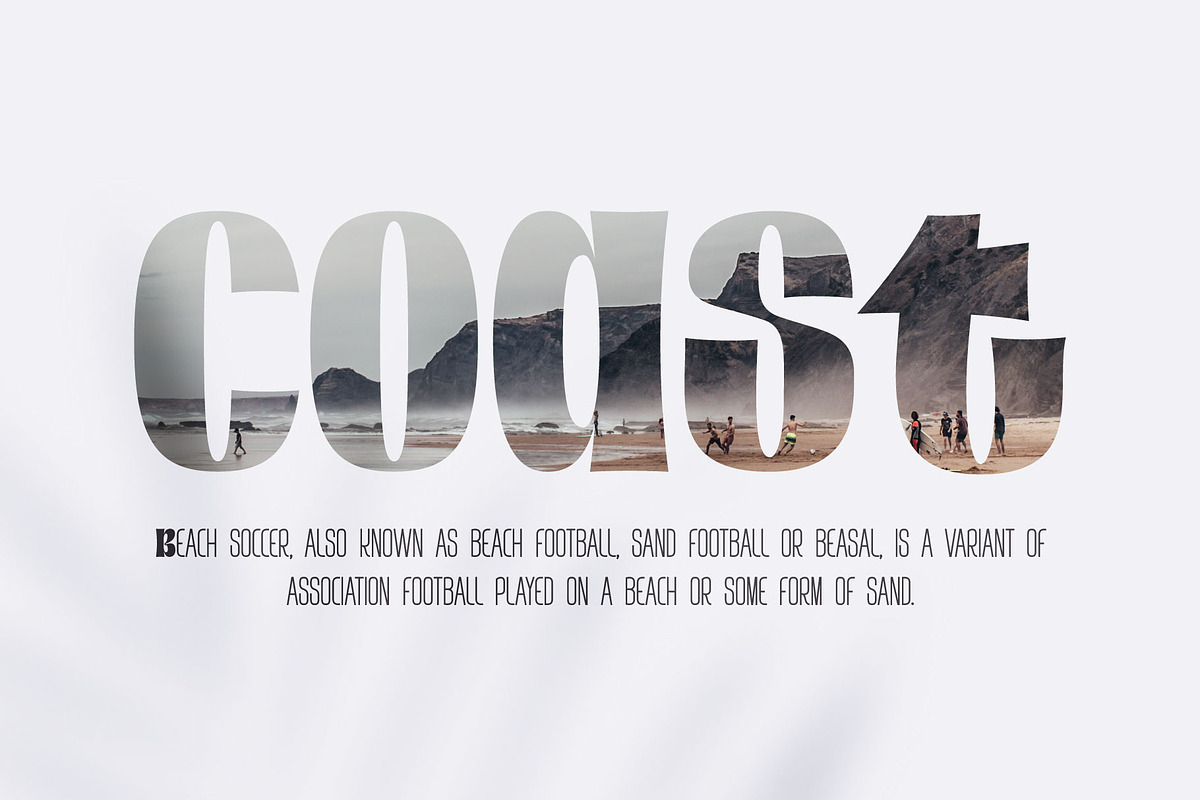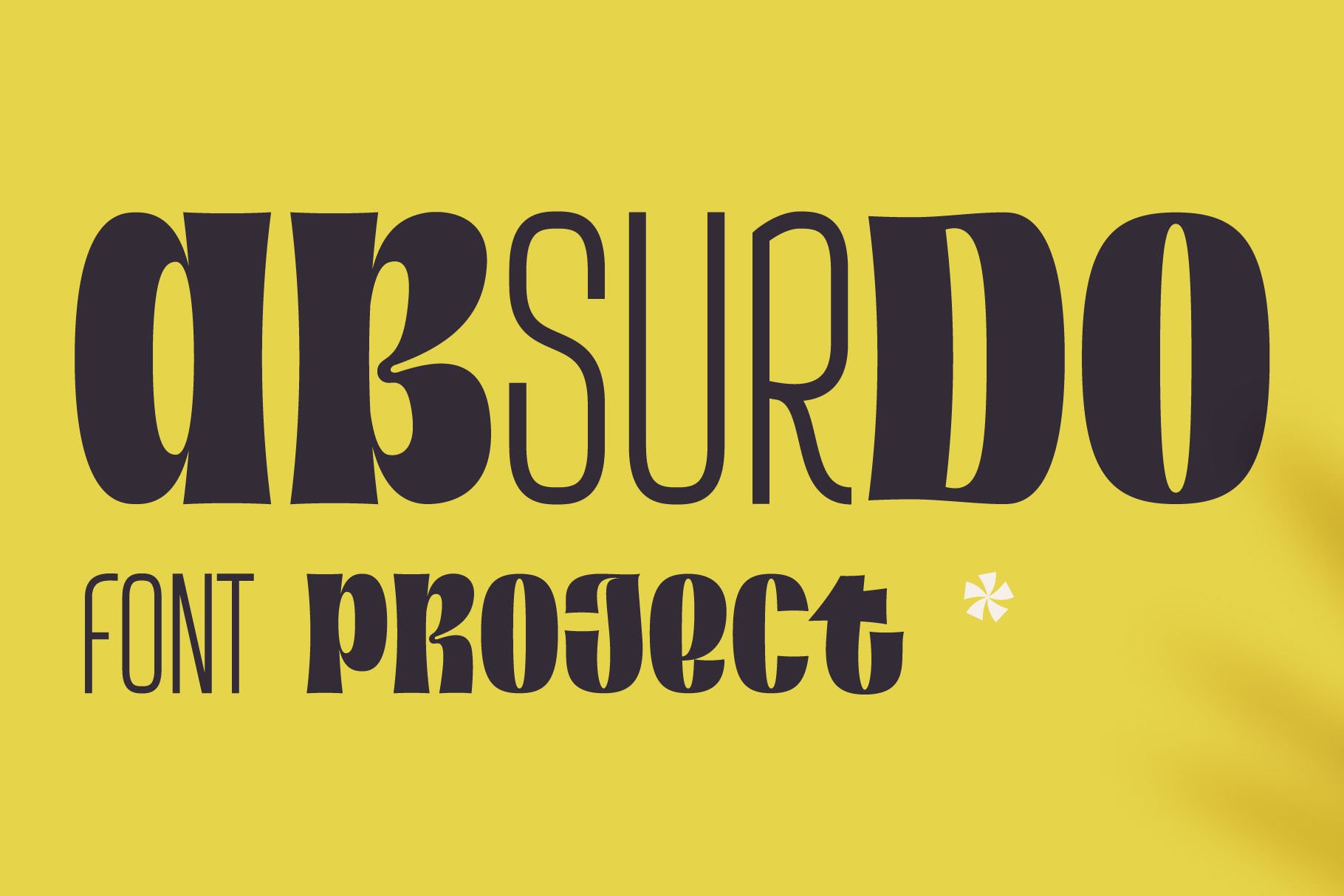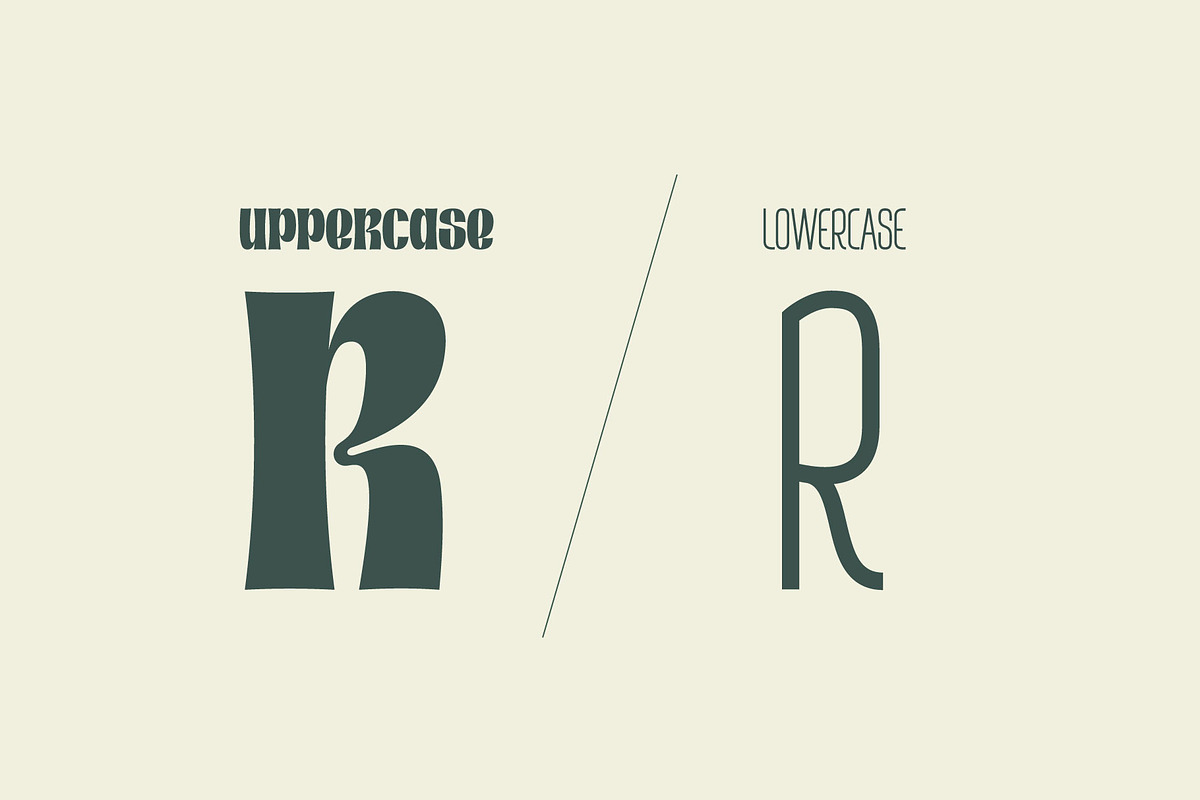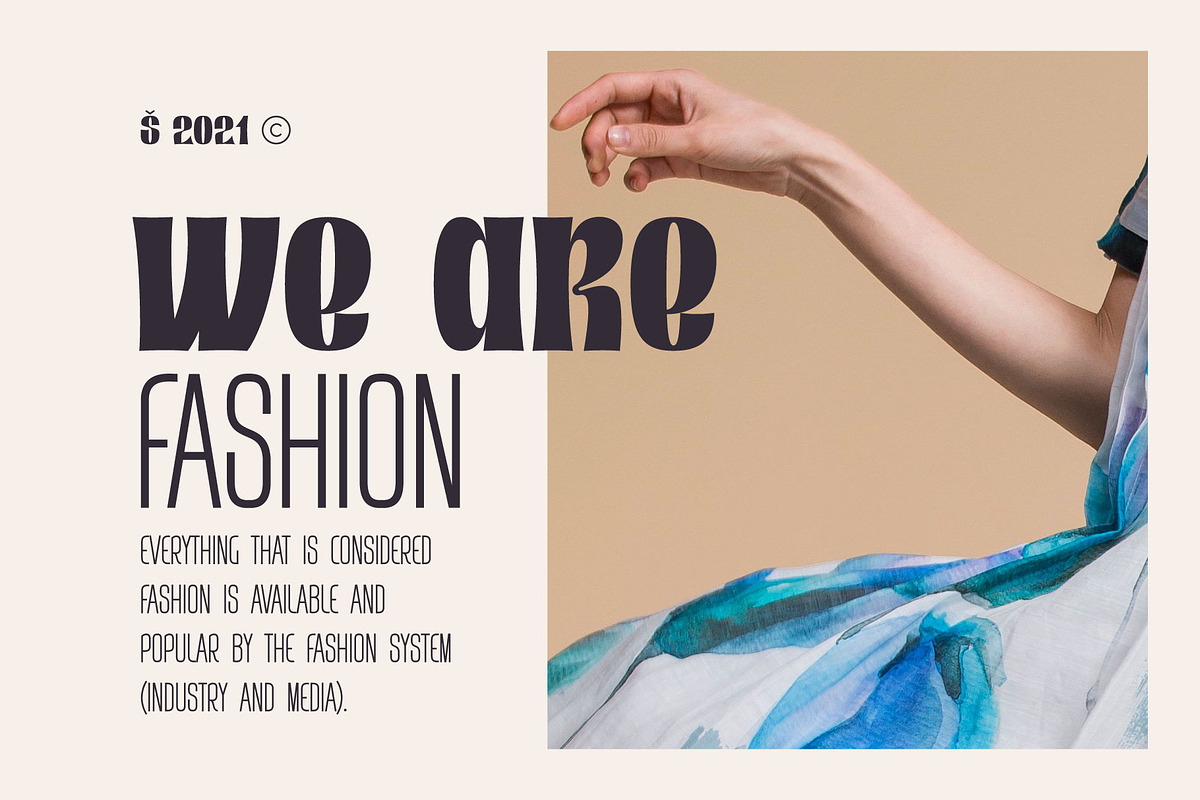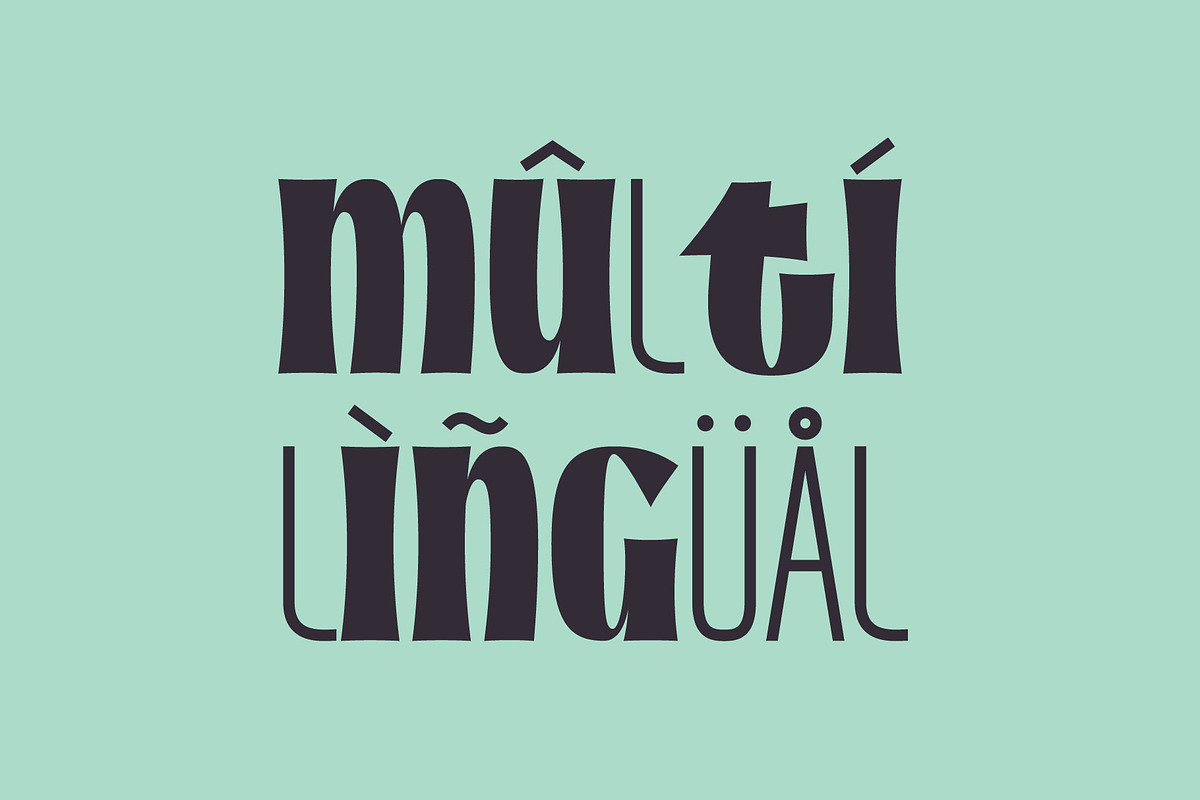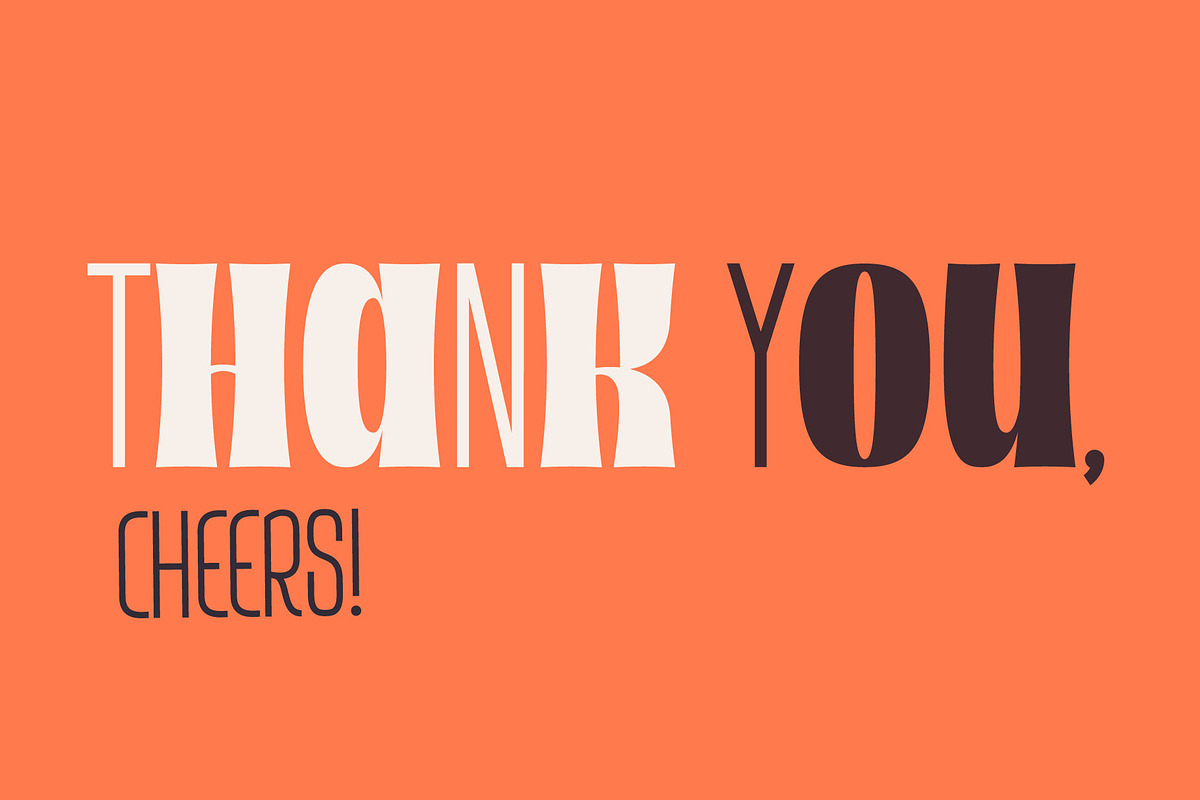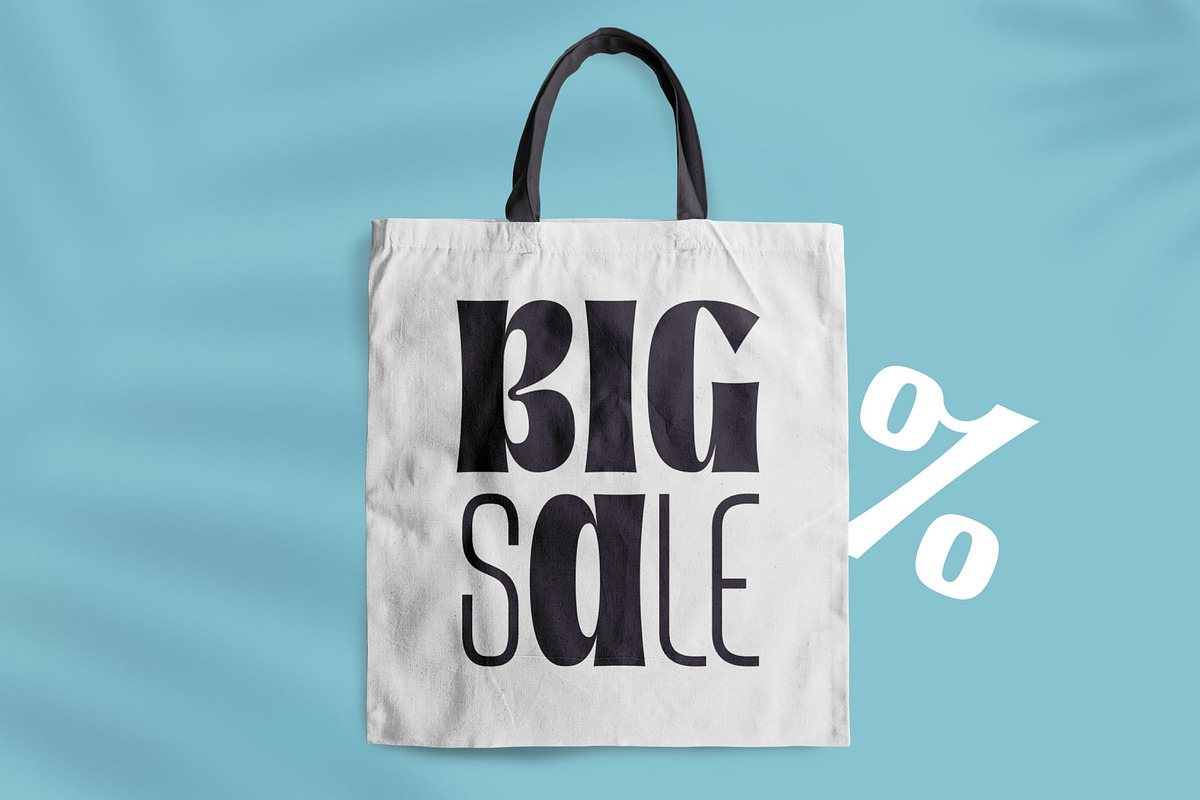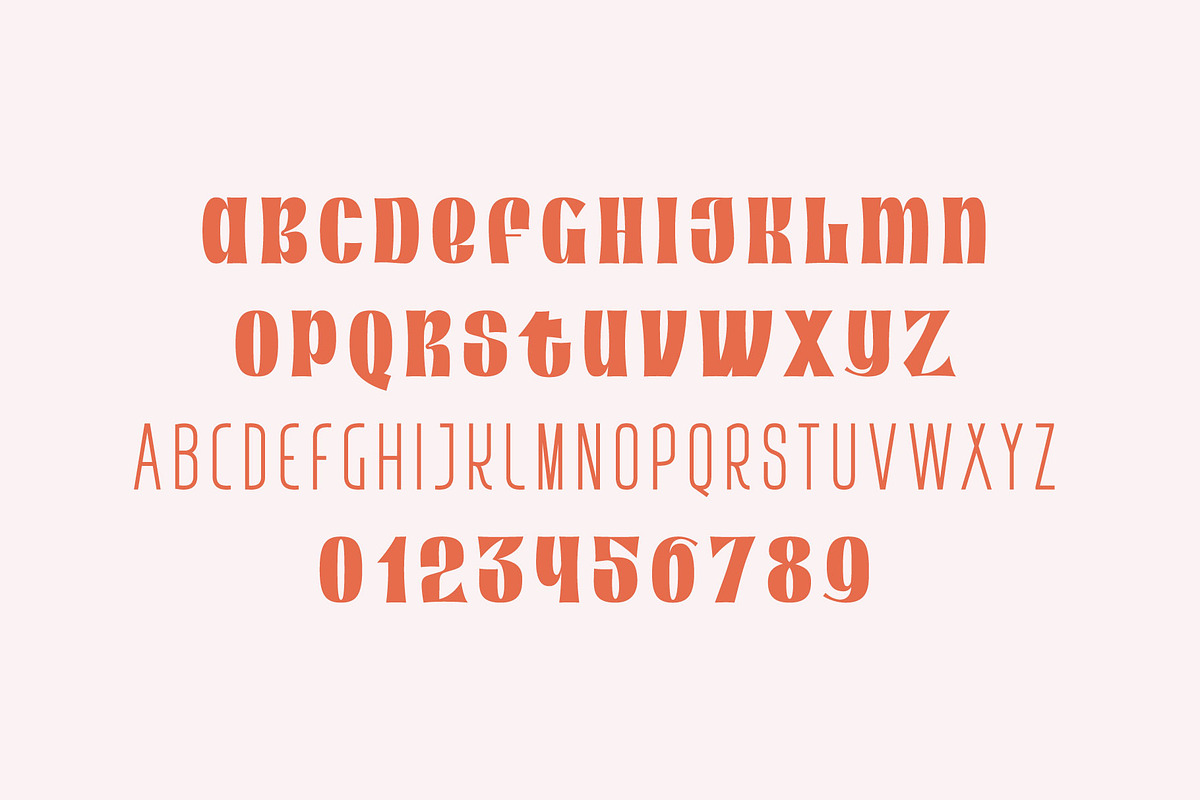
Absurdo playful font
Absurdo is a playful font for your fun and happy design projects. The main idea of this font is a quirky replacement of uppercase and lowercase symbols. Uppercase is heavy and bold, at the same time lowercase is light and narrow.
You'll get a playful font for fun advertising, fashion stickers, summer posters, wedding logos, retro sale themes and much more.